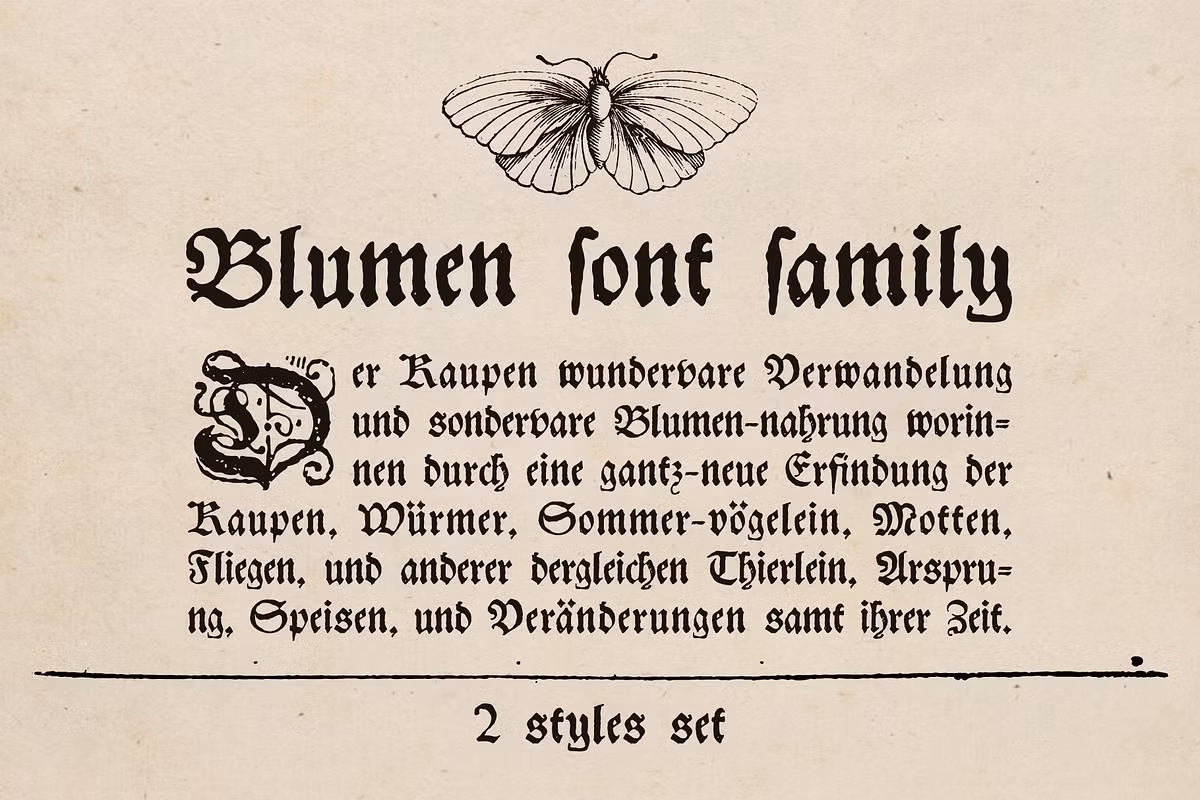
Blumen blackletter font family Free Download
Blumen Blackletter Font Family Free Download is a bold and dramatic typeface inspired by traditional blackletter calligraphy with a modern twist. Featuring intricate details, strong contrasts, and sharp edges, this font family is perfect for projects that require an old-world aesthetic, including logos, posters, invitations, book covers, and medieval or gothic-themed designs.
Blumen Blackletter Font Family Free Download offers various weights and styles, giving you flexibility and versatility for different design needs. Whether you're working on a vintage project, a heavy-duty logo, or creating detailed posters, this font family brings authenticity and boldness to your typography. Download it today and bring a gothic flair to your next creative project with Blumen Blackletter!